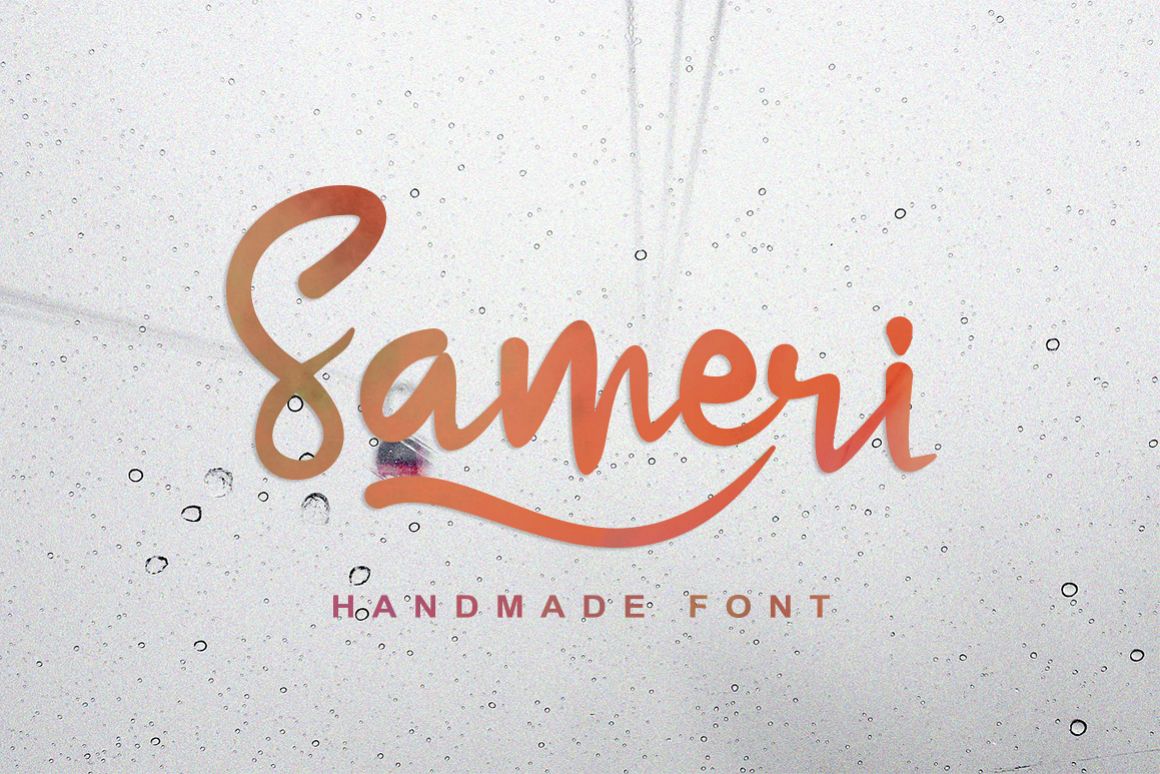
Sameri Brush
Sameri Vector
Sameri Brush is a smooth hand marker, modern style marker , which was created to meet the needs of your next design project.Sameri Brush can used for various purposes. such as the title, logo, correspondence, signage, labels, newsletters, badges, t-shirt, etc.Also supports in program, Adobe Illustrator, Adobe Photoshop, Adobe InDesign, Corel Draw X version, Microsoft Word, etcWhat included:Comes with Uppercase and lowercase characters, large set of punctuation glyphs, numerals, supports international languages, stylistic alternates for several key lower case characters And this Font has given PUA unicode (specially coded fonts).Features:Standard Character, OTF, TTF and Web FontTo enable the OpenType Stylistic alternates, you need a program that supports OpenType features such as Adobe Illustrator CS, Adobe Indesign & CorelDraw X6-X7.Use this font wherever you want.Mail support : For Extended Licence or if you have any question, please contact me Via e-mail. I'll try to respond as quickly as possible.Thank you for purchase!